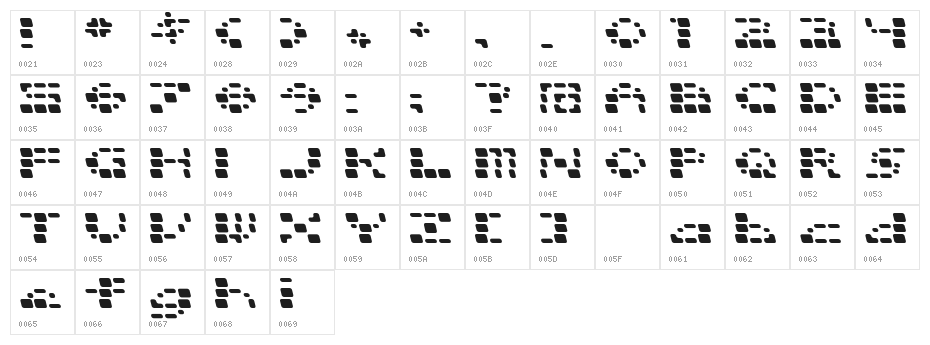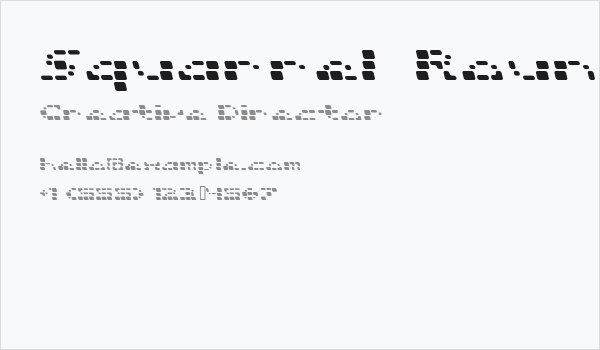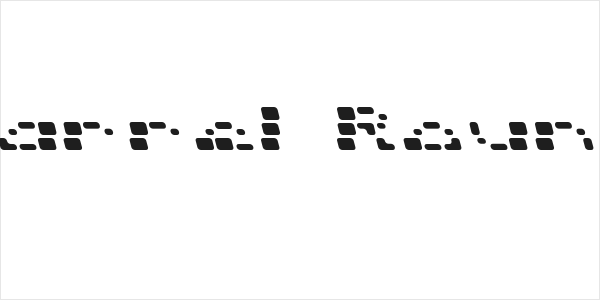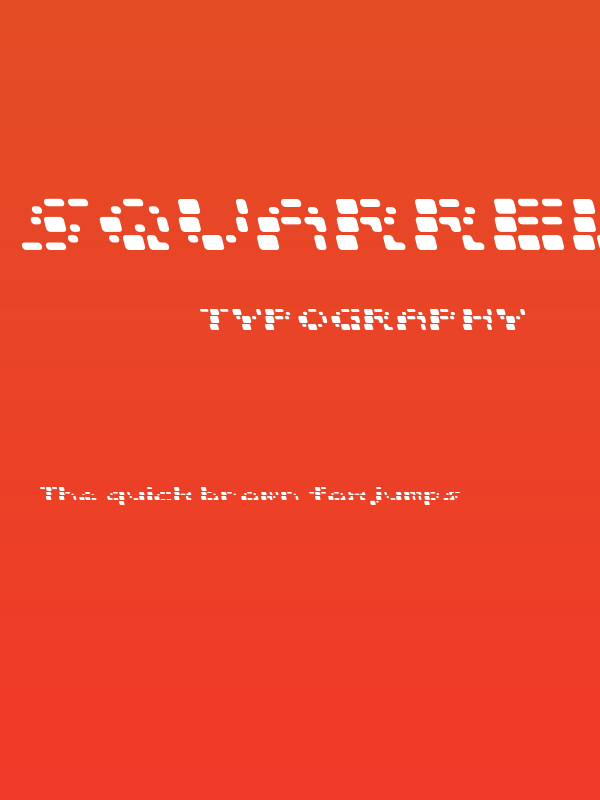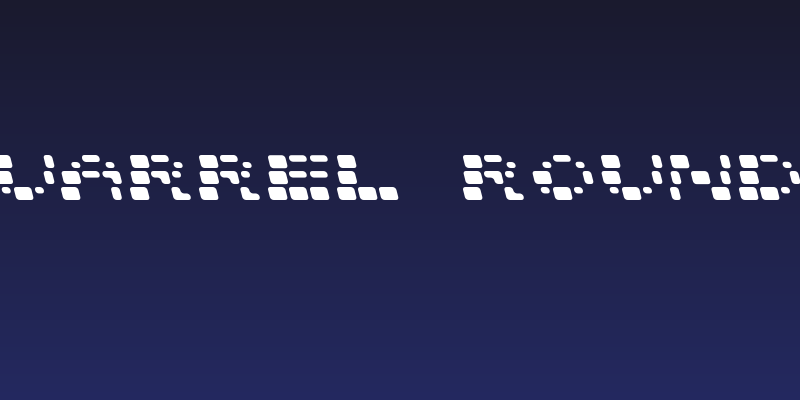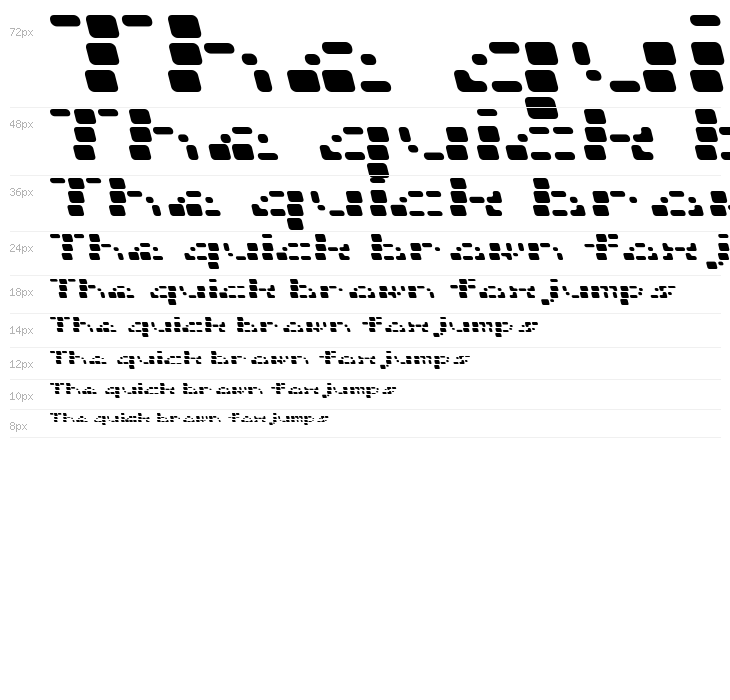
Squarrel Rounded Font
Squarrel Rounded Description
This font features a unique design with rounded, square-like shapes forming each character. The letters are composed of multiple small, rounded squares that create a pixelated yet cohesive appearance. This design gives it a modern and digital feel, reminiscent of retro video game aesthetics. The font maintains a consistent weight throughout, with each character displaying a uniform thickness. The spacing between characters is relatively tight, which enhances its compact and structured look. Its distinct style makes it stand out, offering a playful yet futuristic vibe.
| Use Case | Logos, Headlines, Digital Art |
| Proposed Projects | Ideal for digital art projects, video game graphics, tech-themed posters, and modern branding. |